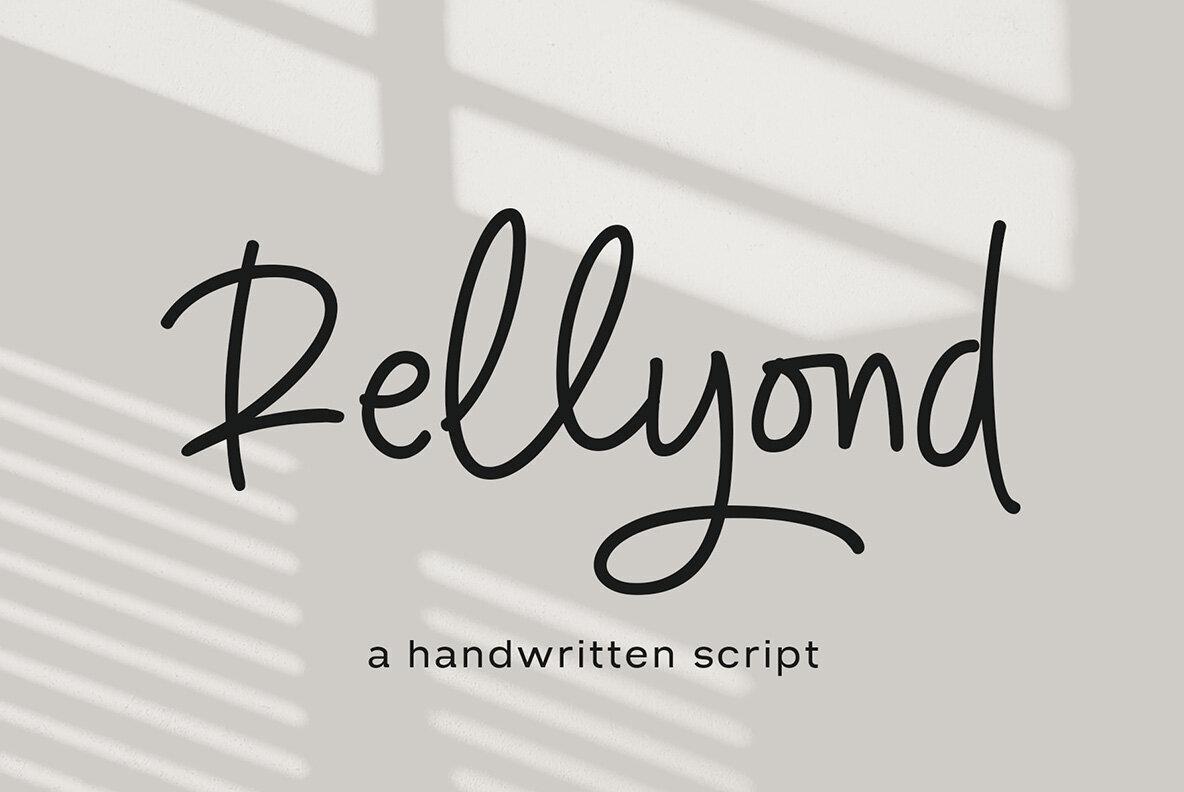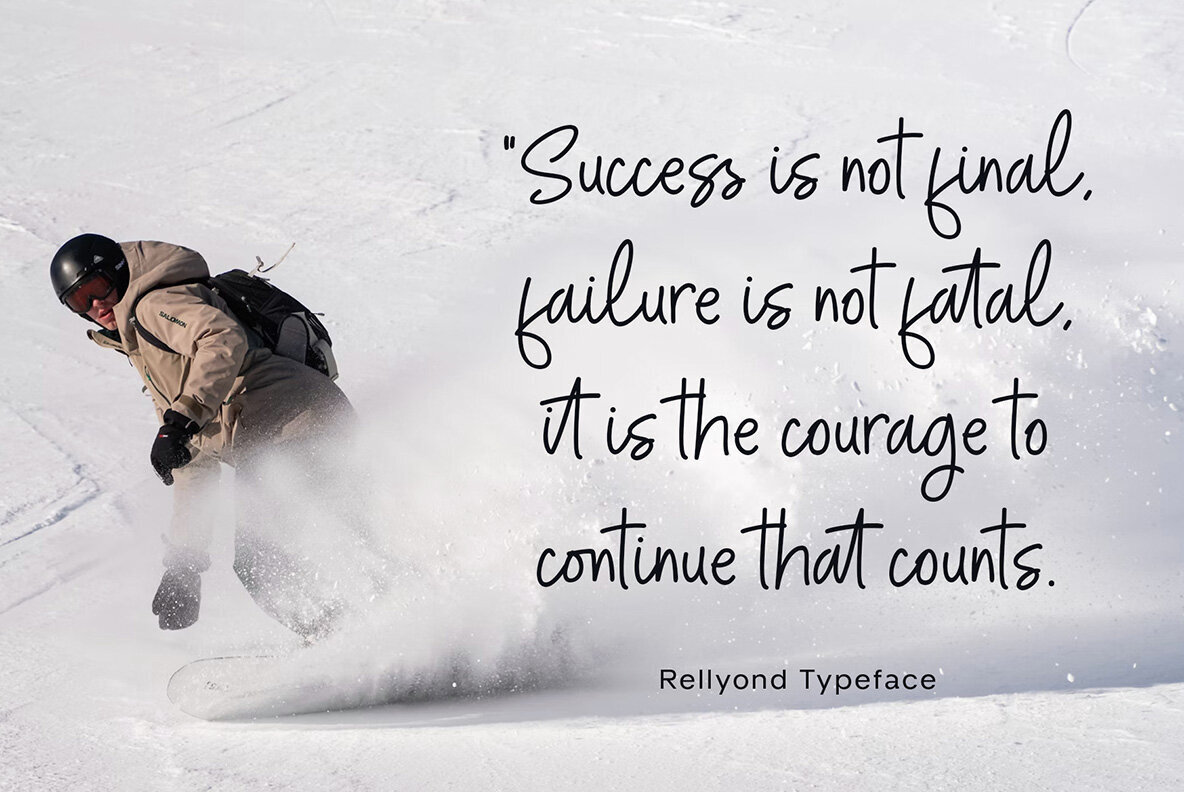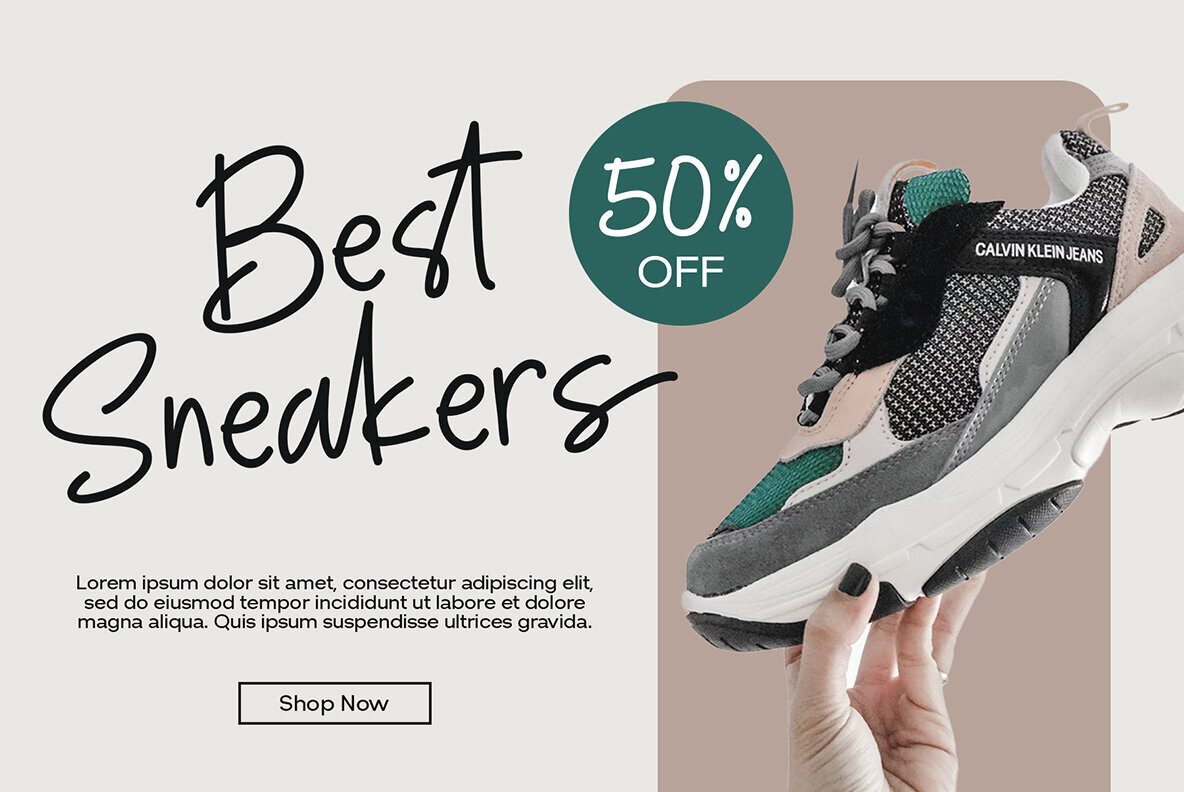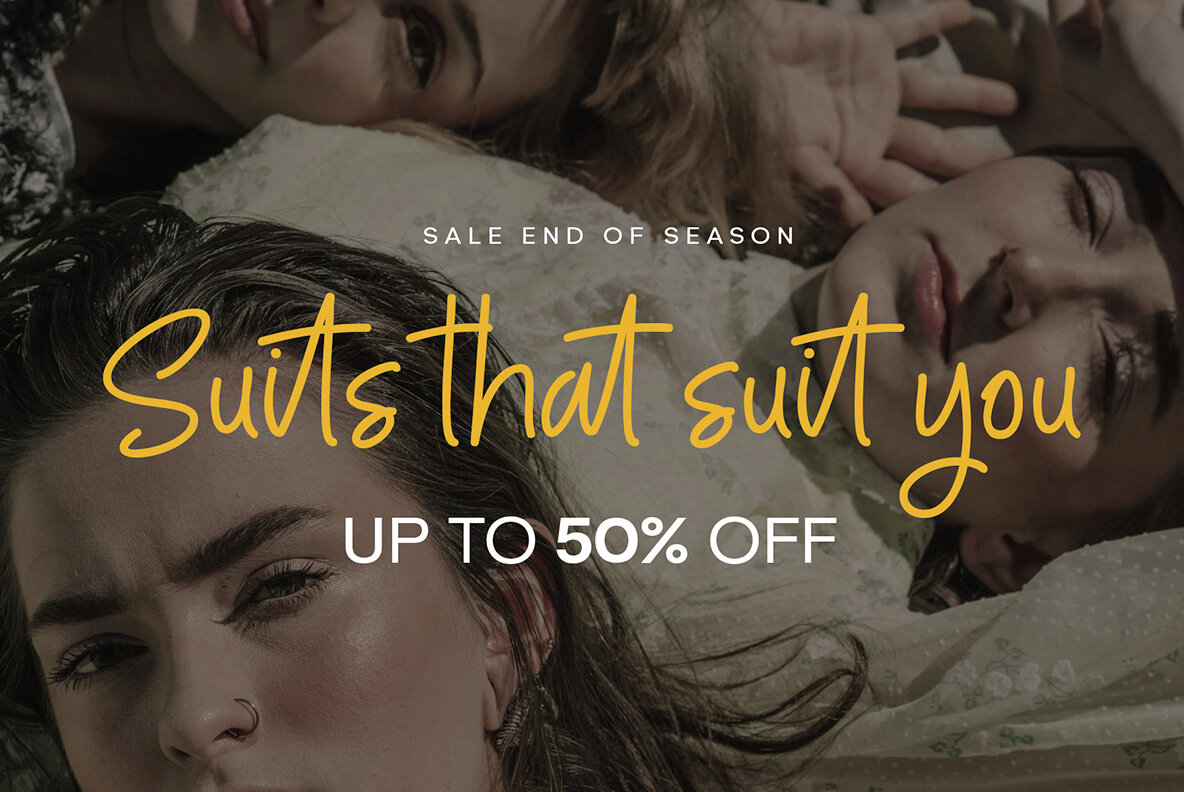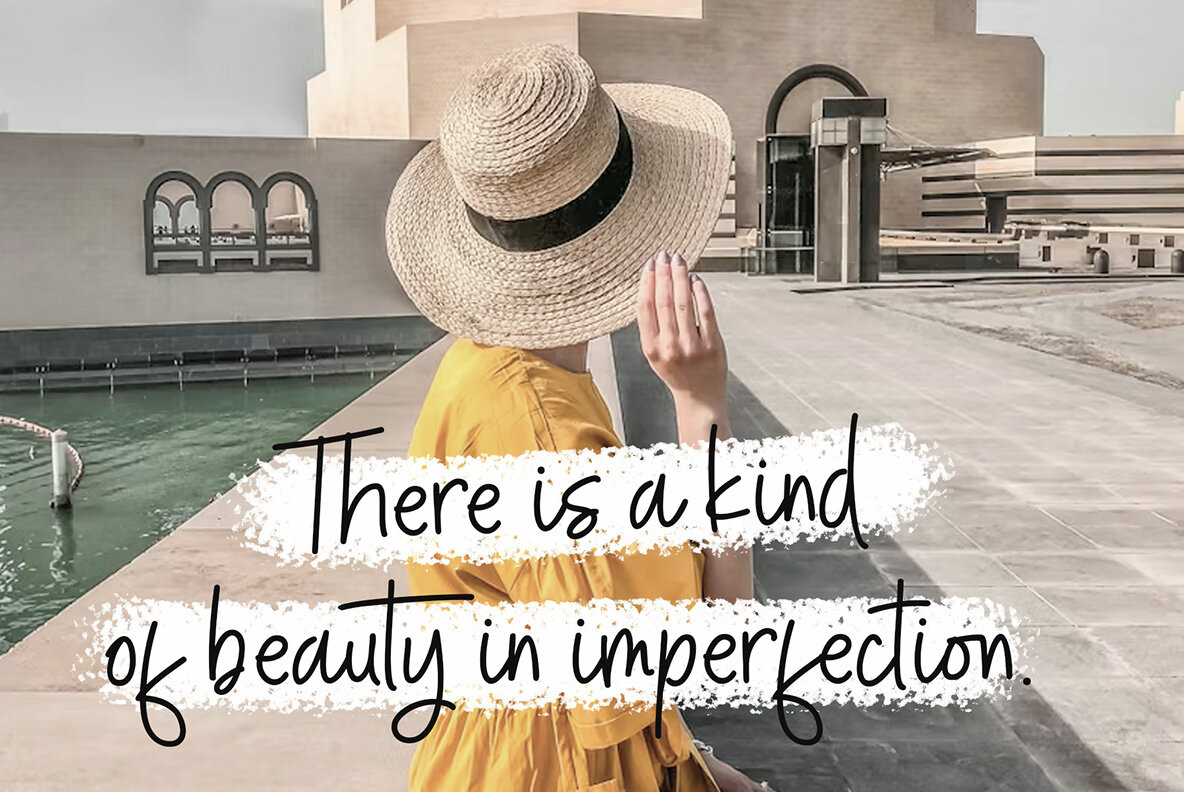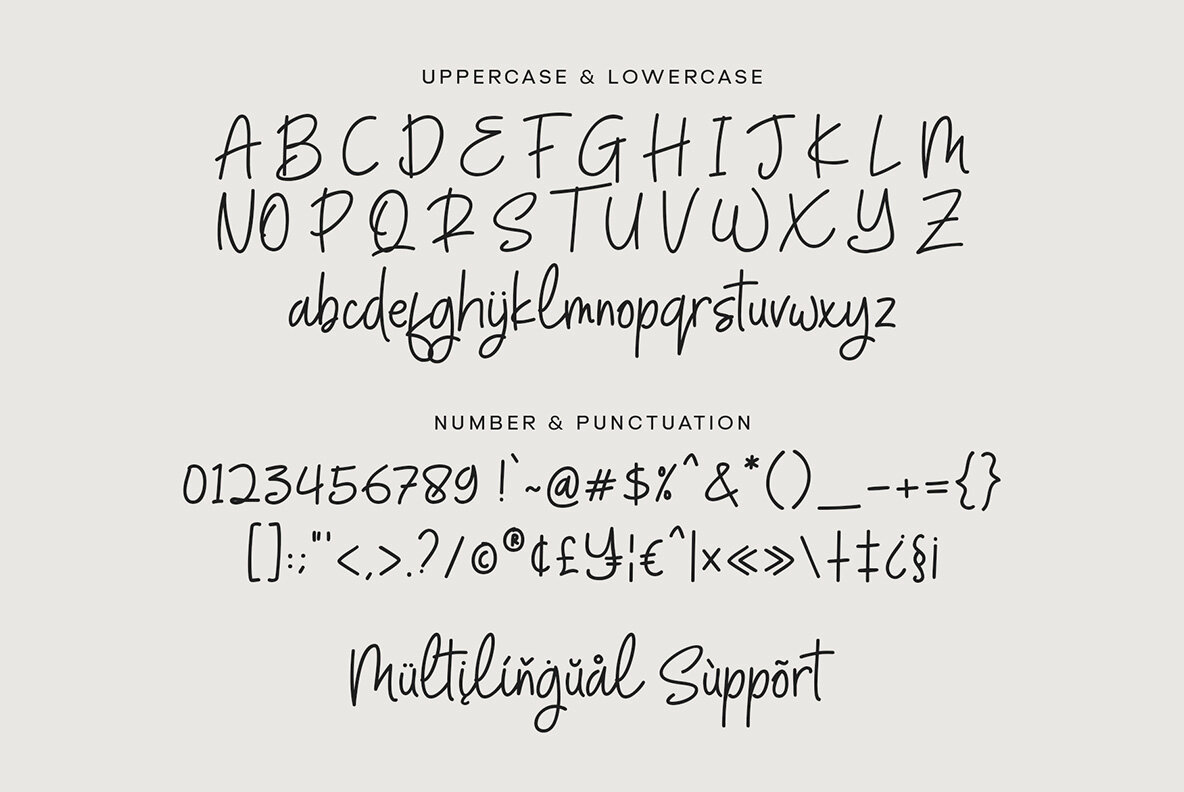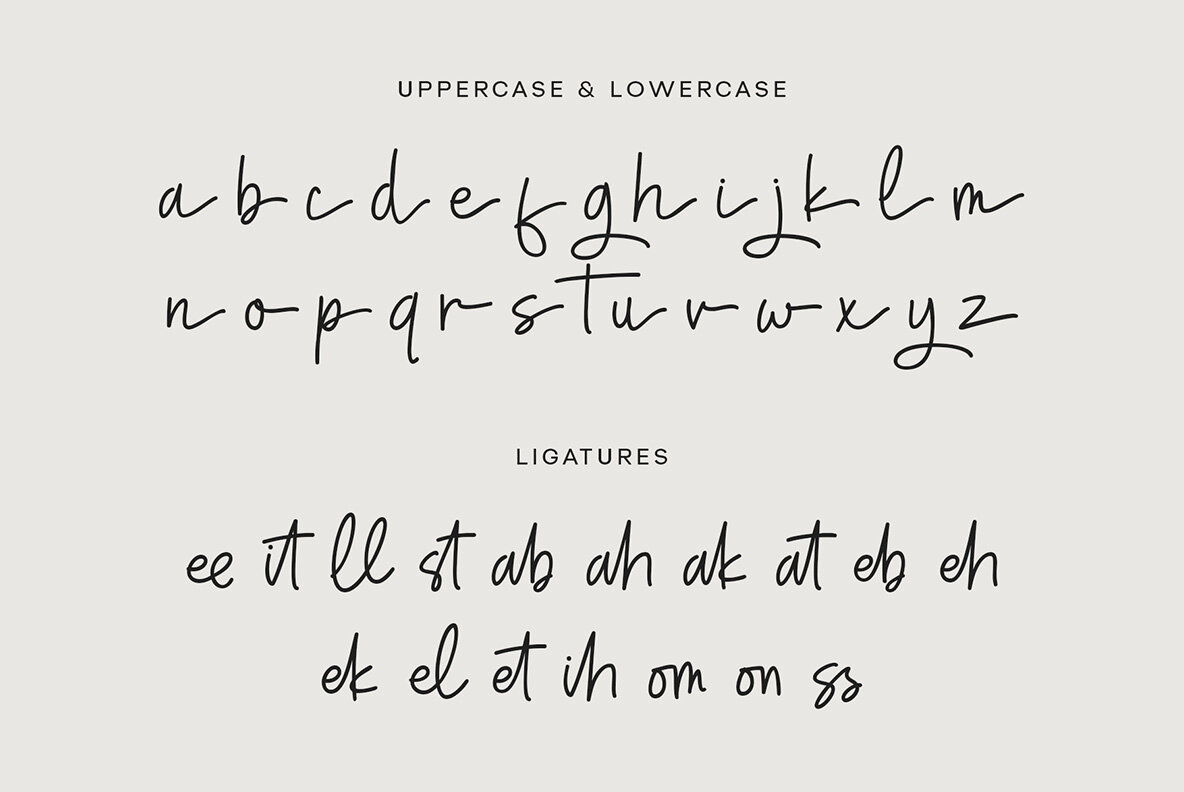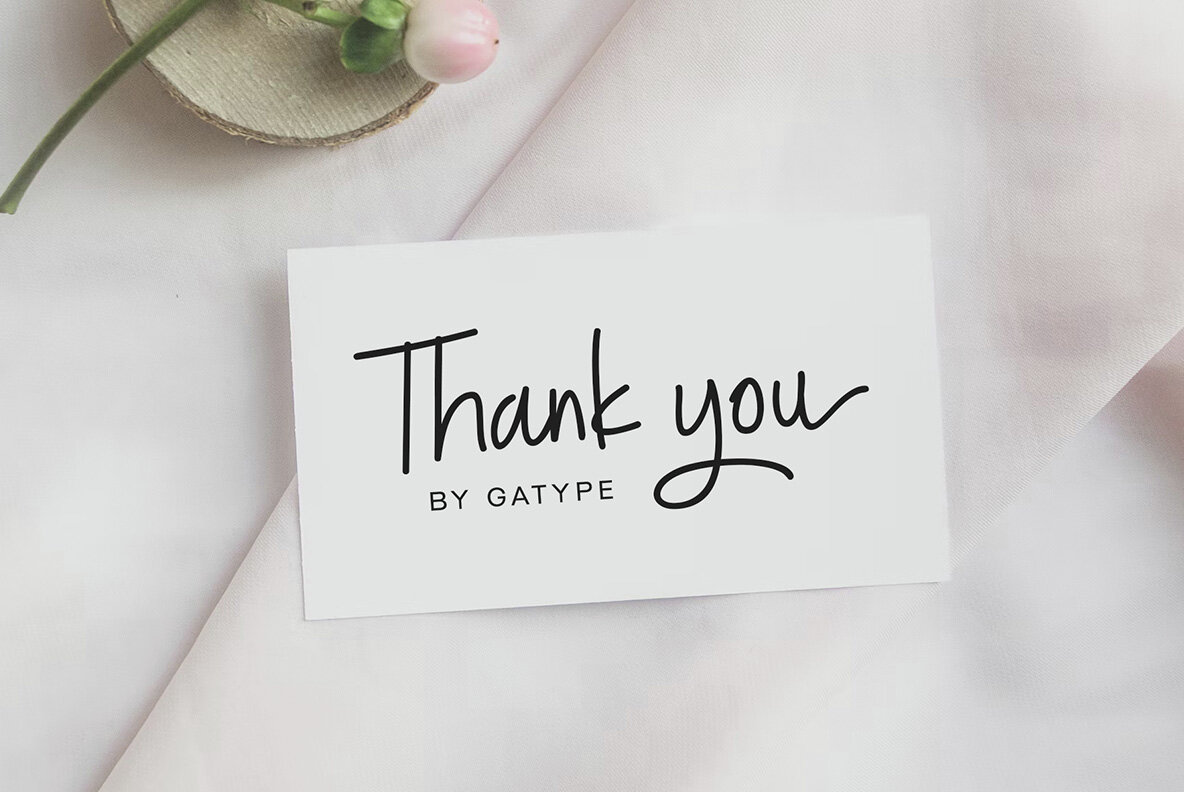
Rellyond Font
Rellyond Regular
Rellyond is a handwritten script font that features a single-line stroke with uniform thickness, providing a sleek and contemporary aesthetic. Its elegant yet relaxed style makes it an ideal choice for diverse design projects. Whether you're working on branding, crafting unique logos, or creating eye-catching invitations, Rellyond can bring a touch of sophistication to your work. Additionally, its versatility makes it suitable for packaging designs and enhancing social media content. The font's consistent stroke offers a balanced and polished look, making it a valuable addition to any designer's toolkit.